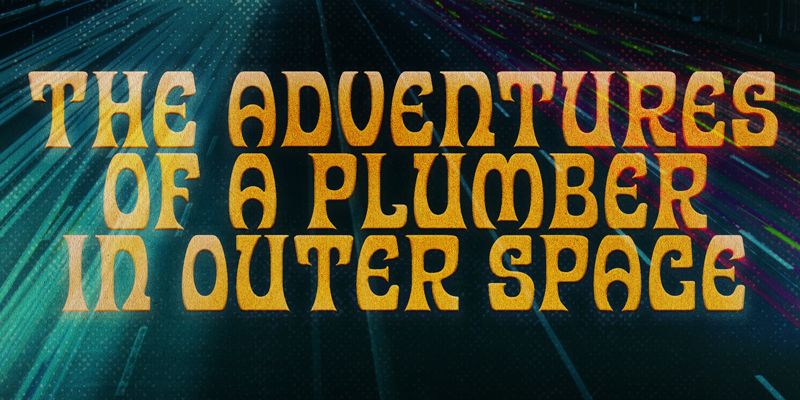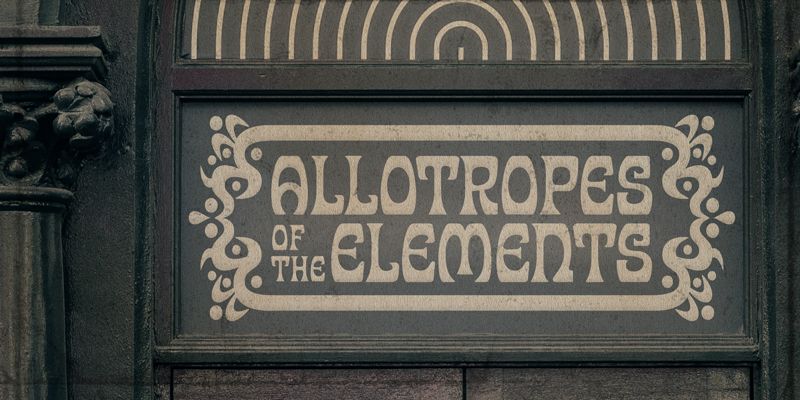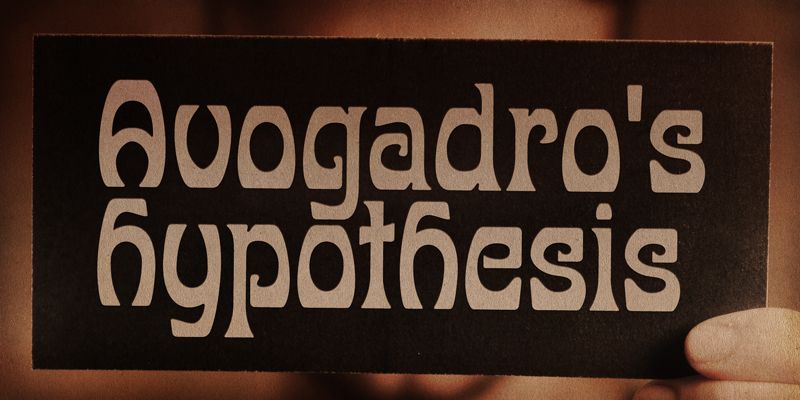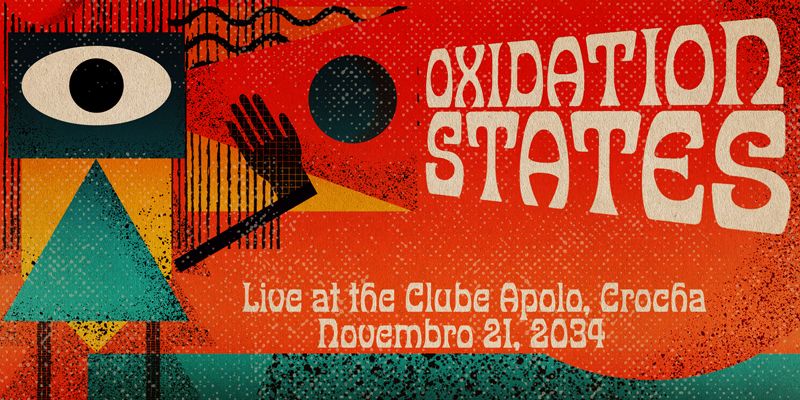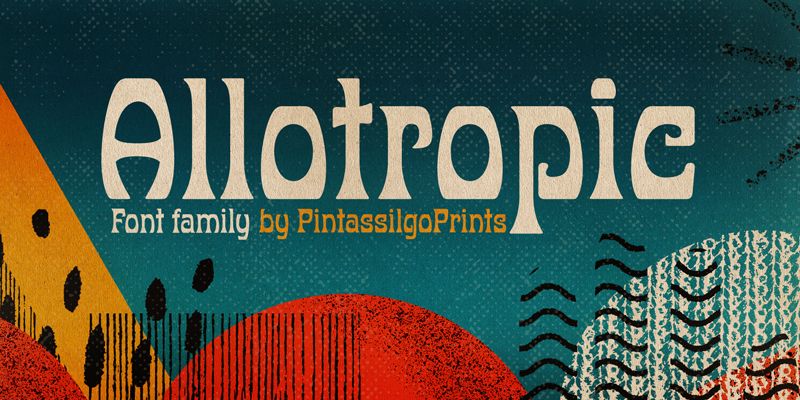
Allotropic is a decorative display face with remarkable Art Nouveau flair. It loosely draws inspiration from a 1914 untitled alphabet from J.M. Bergling’s “Modern Alphabet” and its interpretation by Photo-Lettering from the sixties. It’s a decidedly fab choice not only for vintage and retro designs, but also for creatively contemporary uses in print and on screen. Use it on book covers, packaging, branding, editorial, web, advertising, and apparel! Give Allotropic a go, let the inspiration flow!